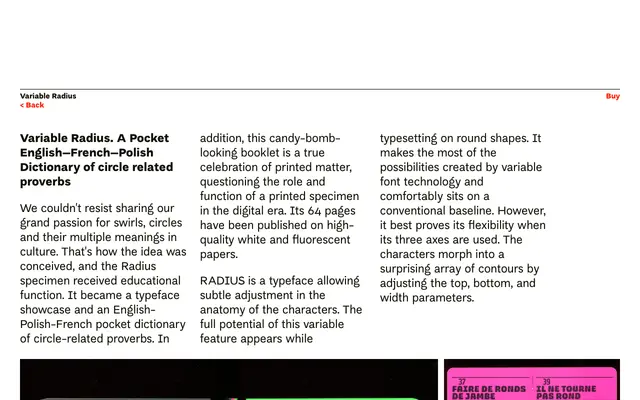
Variable Radius
Threedotstype · Radek Łukasiewicz
A variable display typeface by Radek Łukasiewicz with three axes controlling top, bottom and width parameters, optimised for setting type on circular paths.
Radius is a variable font with three axes, top, bottom and width, that allow characters to morph across a wide range of contours. While it functions on a conventional baseline, its design intent is circular setting, where the variable axes adjust the anatomy of each character to follow curved shapes. This listing is for the physical specimen booklet, a 64-page pocket dictionary of English, French and Polish circle-related proverbs printed on fluorescent and Munken white papers.
Radius is a display typeface built around a variable font axis system controlling top, bottom and width parameters, designed specifically to morph characters when set on circular or curved baselines.